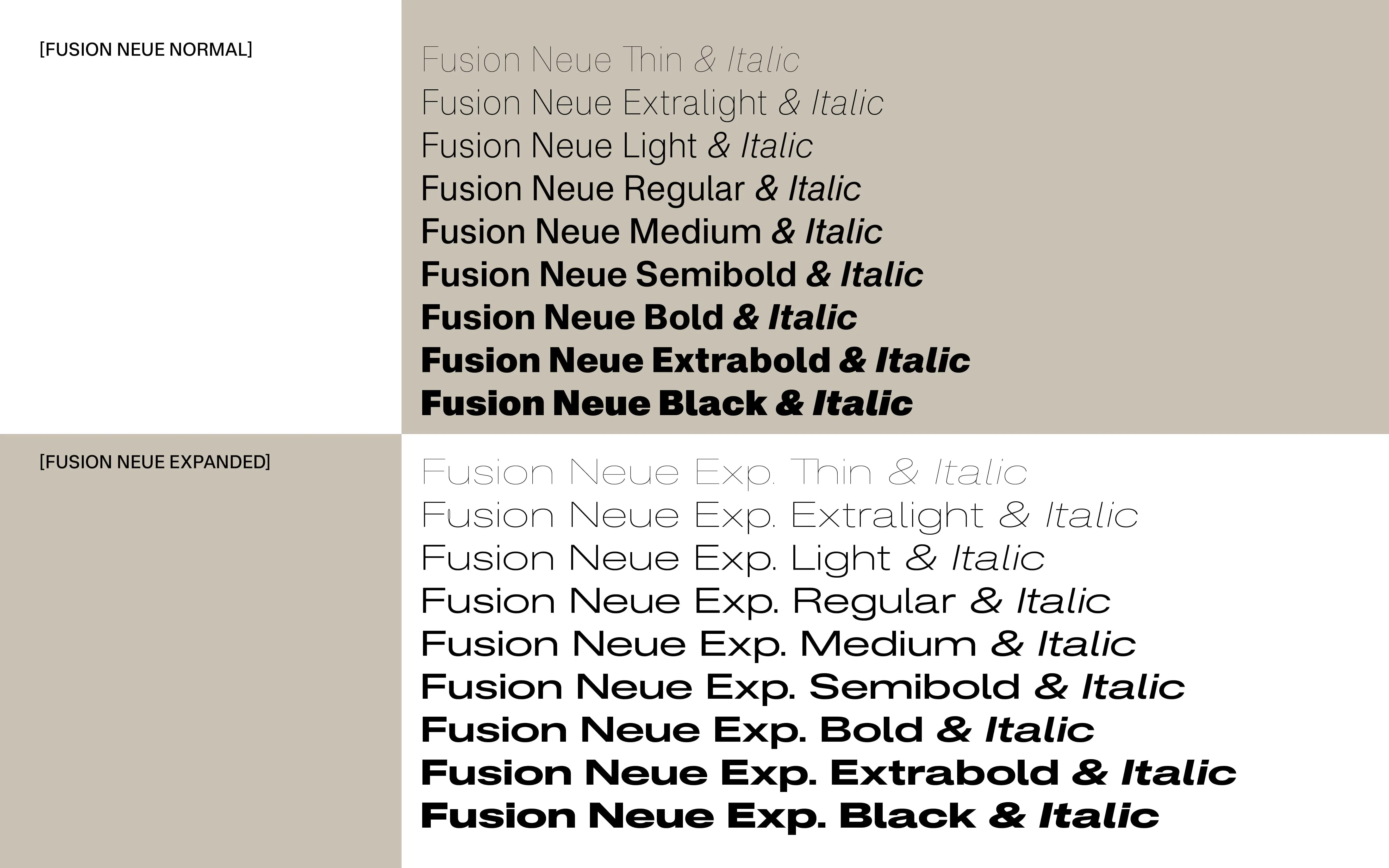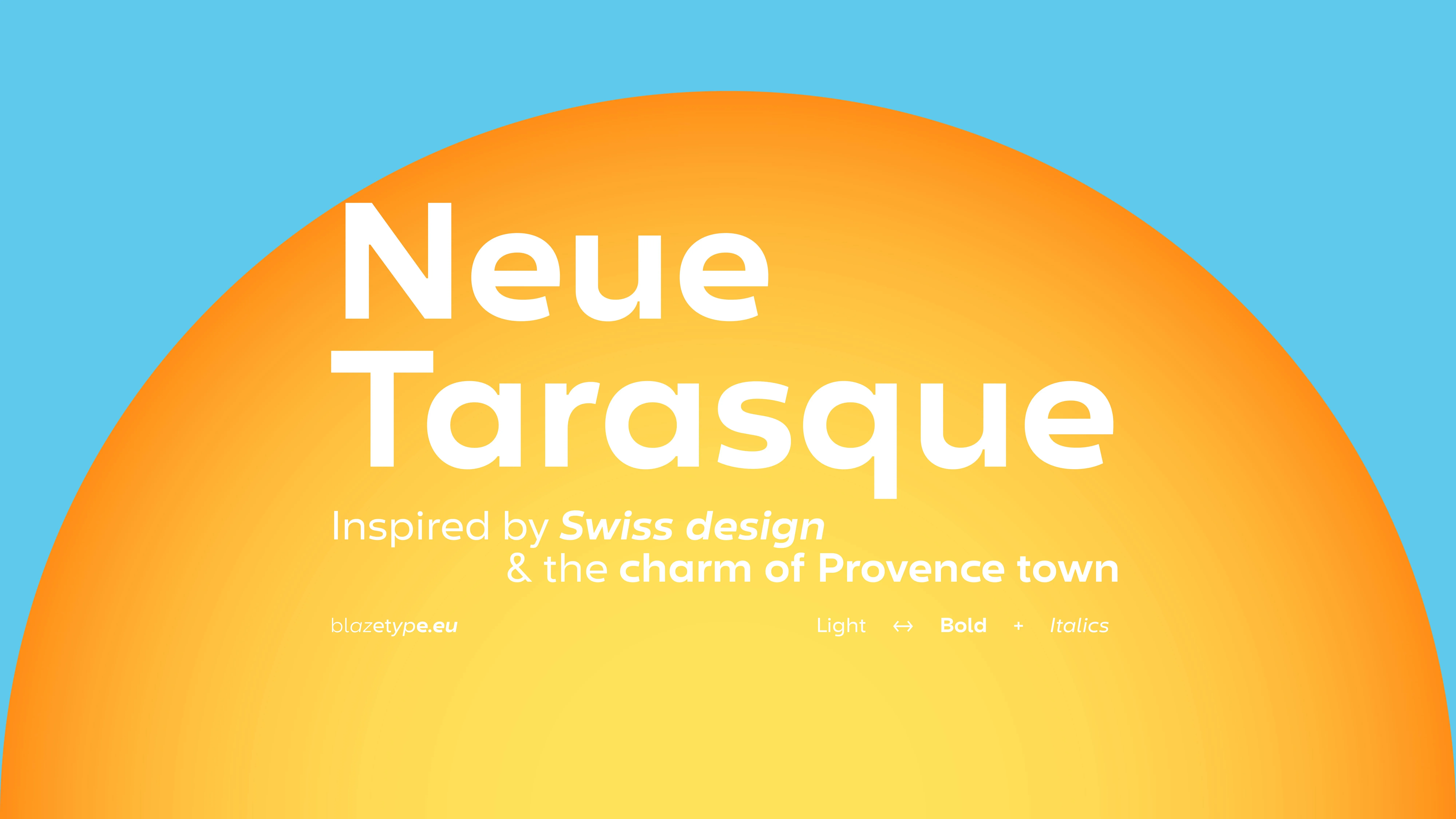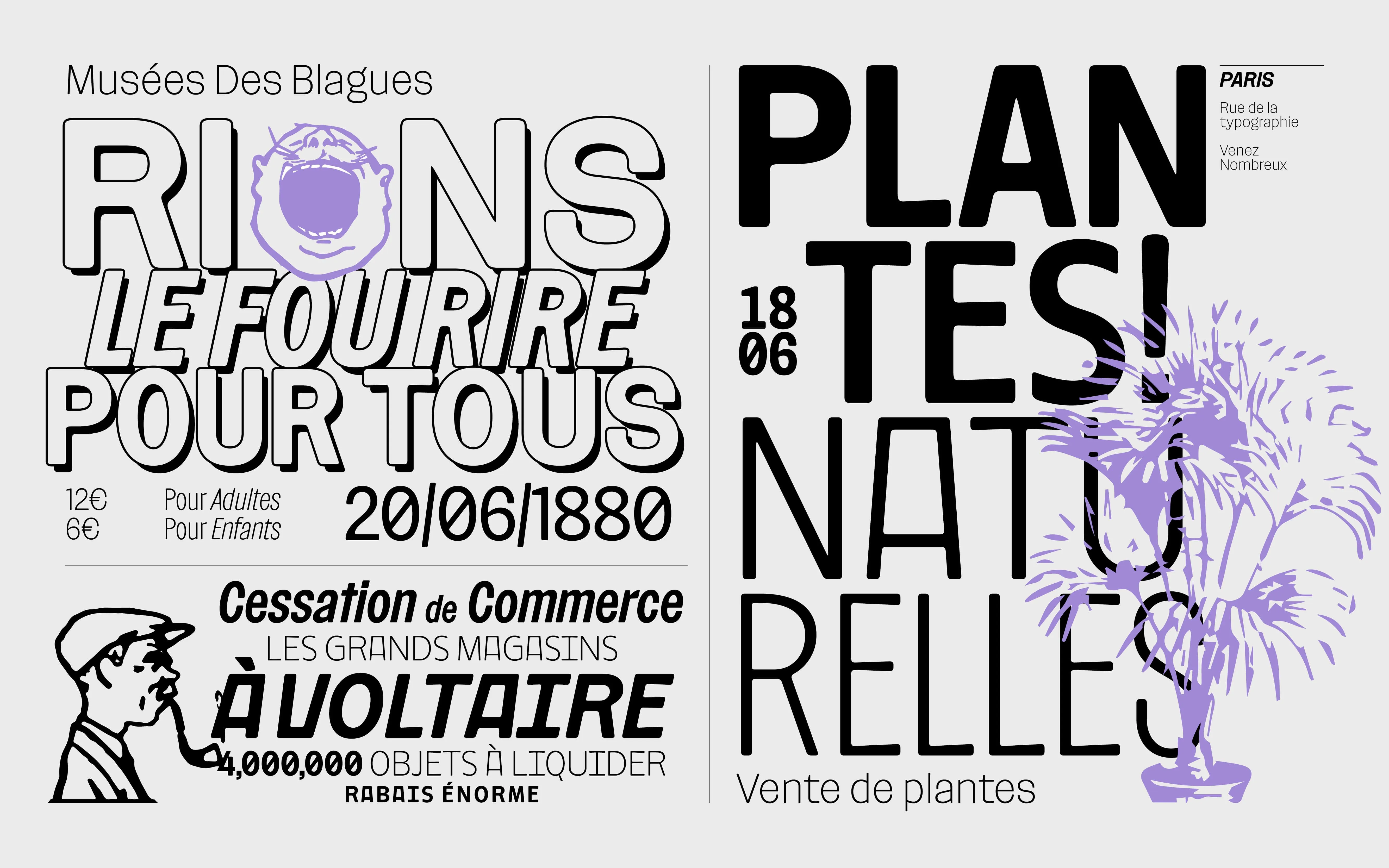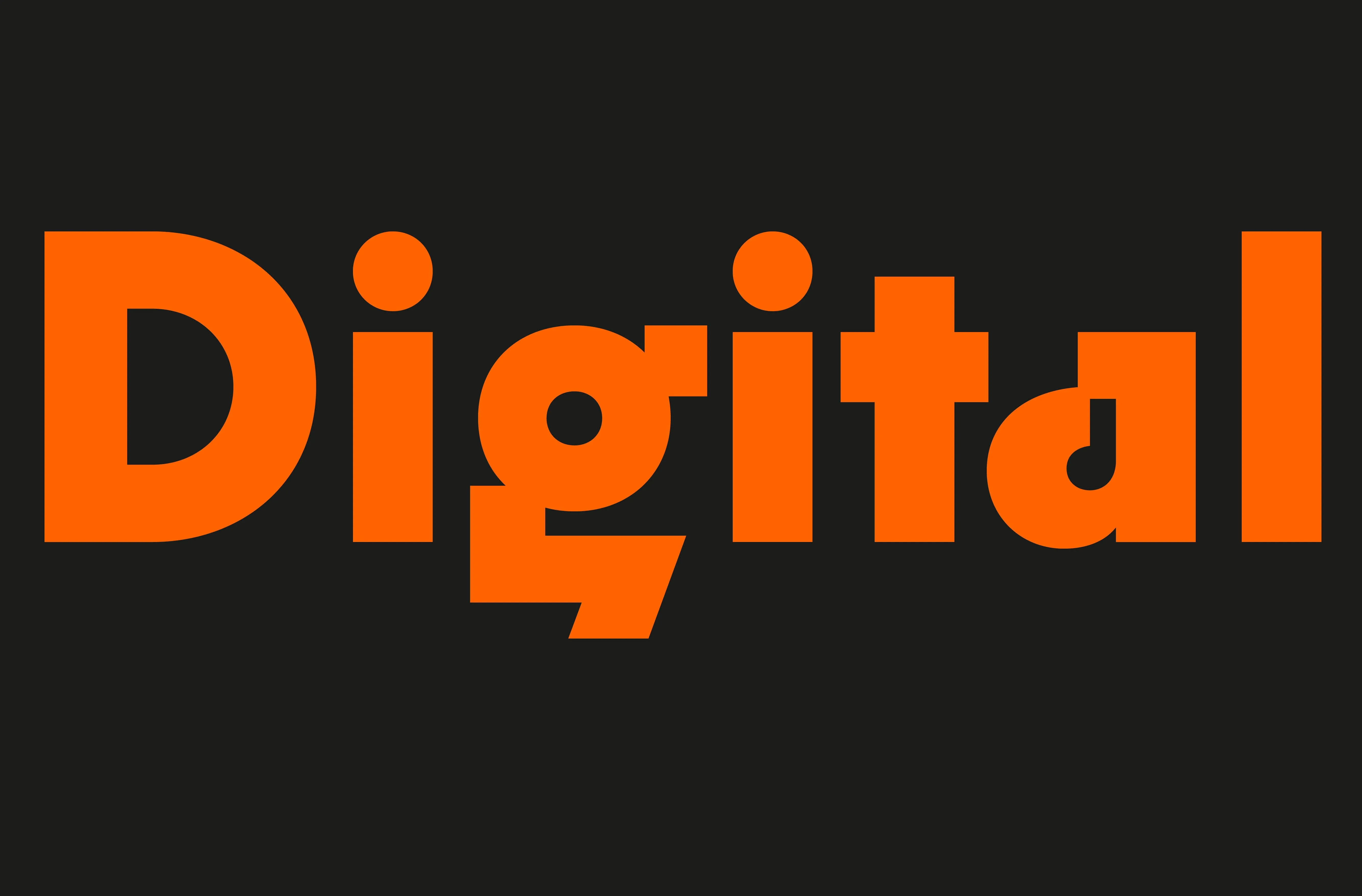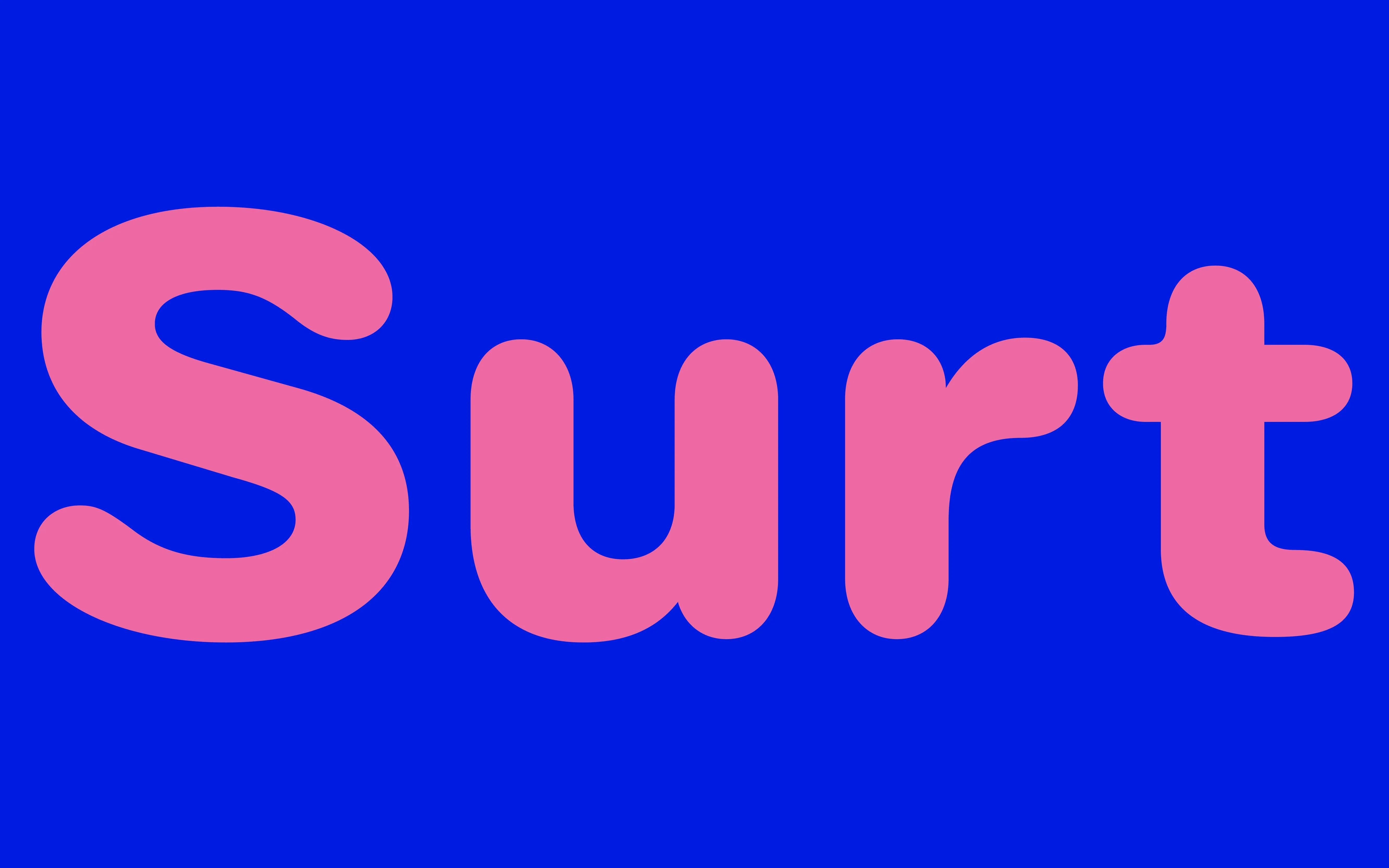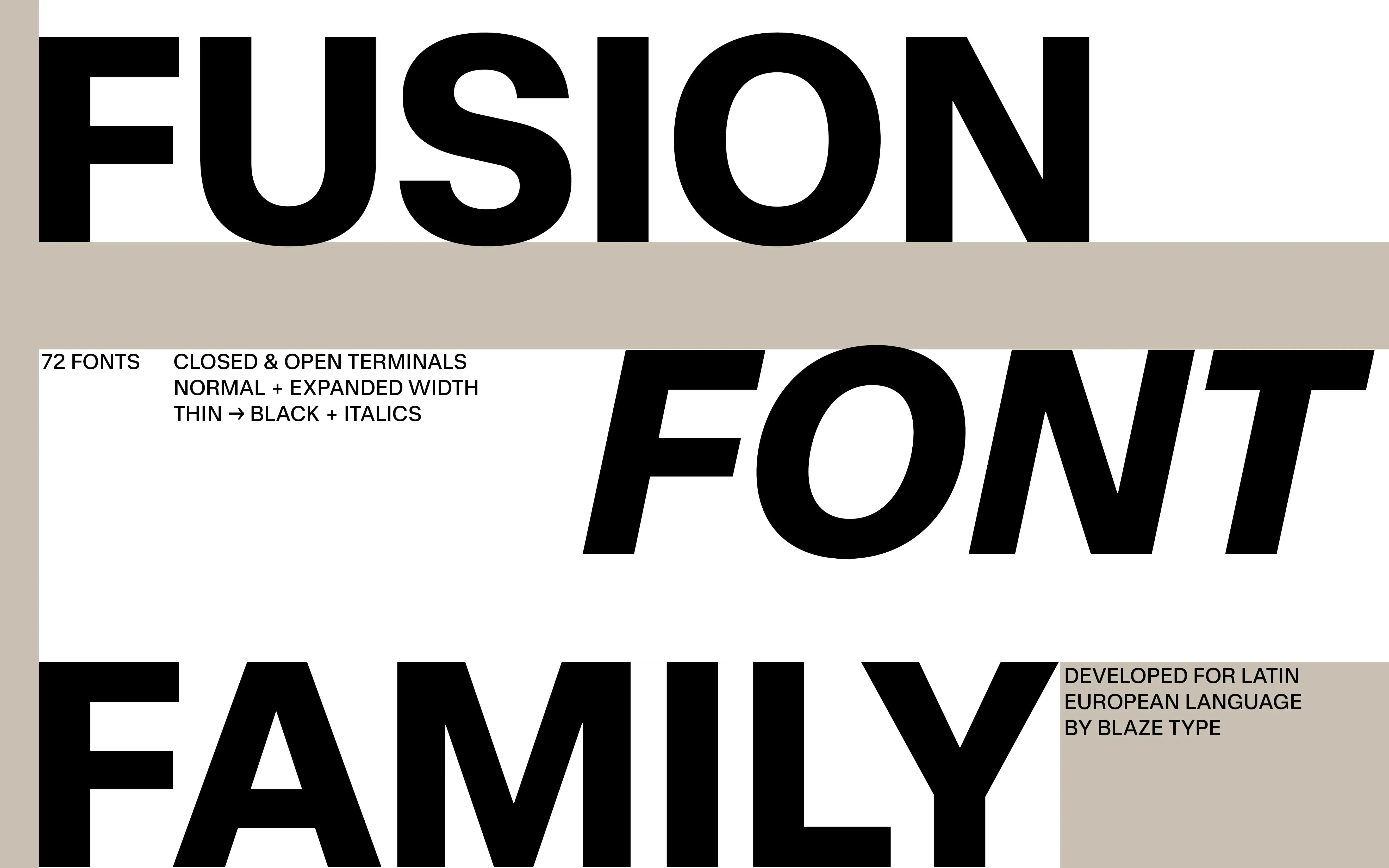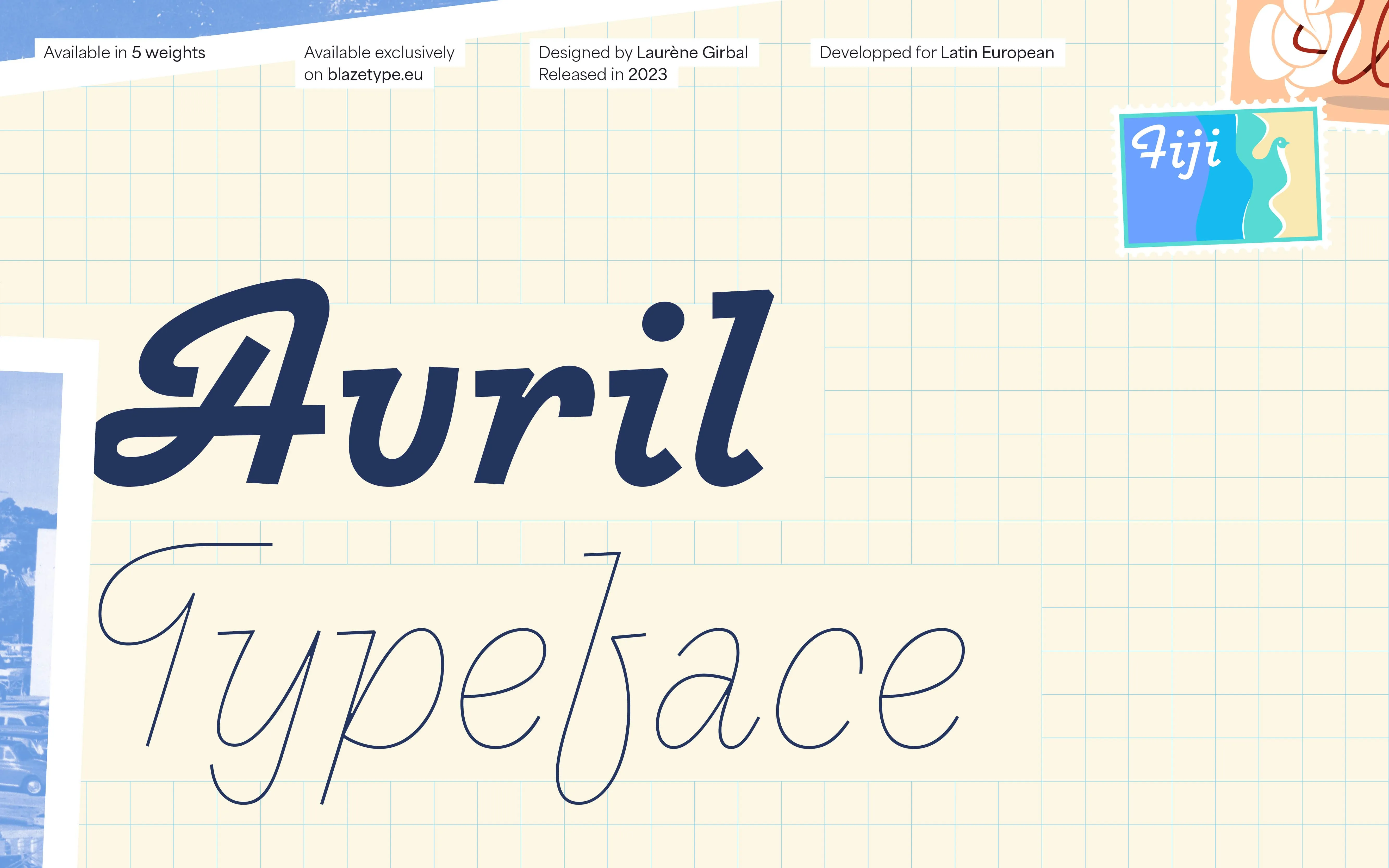
2023 Type Trends
Blaze Type published its first typeface, Apoc', in 2018, and since then productivity has been intensively maintained, multiplying new collaborators or exploring Greek and Cyrillic alphabets.
The monthly entries on this page also share creations in terms of custom typedesign for companies, but without reviewing our font catalog on this page. So it's time to take a break and look back on a busy typographic year for Blaze Type
2023
10 typographic families
258 fonts
TheBox 2023
7 typographic families
41 fonts
In Sans We Trust: Body fonts (1/2)
Blaze Type will find it hard to hide its love of sans serif typefaces. The genre is already well represented in the catalog, but several new releases add to the richness of this niche.
Surt is one of the foundry's bestsellers, and was missing a rounded version to add a fun aspect to this complete family.
48 extra fun fonts: 8 weights, 3 width (normal, expanded, extended) and its italics.
Homie is also the latest addition to our range, seeking its place between geometric sans and grotesk. Just what we've been looking for: a human sans serif, with light strokes variation, elegance within robustness. The 18 fonts in the family could well be enriched in the future by other width. 9 weights and its italics.
Digital Sans is Blaze Type's answer to the geometric sans revival, following the footsteps of Paul Renner's Futura. Here again, it would not be surprising to see the family extended by new width, if not Greek or Cyrillic. 7 weights and itsitalics.
Fusion is the dream of a marriage between the best of post-WWII Swiss typography, a rational yet inspired neo grotesk. To enable this union, the family is separated into 2 entities, Fusion Grotesk and Fusion Neue each offering open or closed endings, as well as a vast selection of alternative glyphs. The set is then completed by 8 weights, 2 chases and its italics.
Sans for titling (2/2)
And since the love of Sans doesn't stop us, here's something to delight graphic designers looking for the ideal tool to boost their titling.
Routine could be seen as an industrial sans serif, but with the patina of time, probably because it's inspired by late 19th-century French typography. This typeface is just as readable in small sizes as it is in well-composed capitals. 30 fonts, 5 weights, 3 bindings and italics.
Long-vaunted French elegance doesn't stop at Didot typefaces. Relais proposes a contemporary reinterpretation without the pomp of the past. The recipe isn't as simple as a scalpel cutting up the serifs, but begins all the same with this important operation, accompanied by a skillful adjustment of the curves. 14 fonts for 7 serifs and italics.
Neue Tarasque, where the warmth of southwestern France meets Swiss rationality. In fact, it's a sans-serif with a large inktrap and a wide-open eye. Its limited deployment in 3 weights and italics doesn't prevent it from developing its temperament on your campaign titles.
Calligraphy, always!
A return to handwriting must remain the gymnastics of every good type designer. The development of a calligraphy-inspired typeface is therefore a challenge in which digital technology must reinterpret the skills of the hand, without freezing or parodying them.
Sagittaire, with its large serifs, striking contrasts and elegance, is as much Italian Baroque chancery calligraphy as it is slightly decadent fin de siècle typography. The 48 fonts are divided into three optical sizes (text, standard, display), 8 weights and italics.
Secular delivers a magnificent authenticity, that of typical 18th-century French script. It can still be found on old school books, old building signs or product labels from the late 19th century. The work of its author Bouk Ra is a balanced revival that respects its academic reference. A jewel in three weights only.
Avril is a revival of a 1950 painter's letter design. The fantasy combined with the restrained virtuosity of this calligraphy makes it a typographic tour de force for your offbeat communications. Again, three weights only.